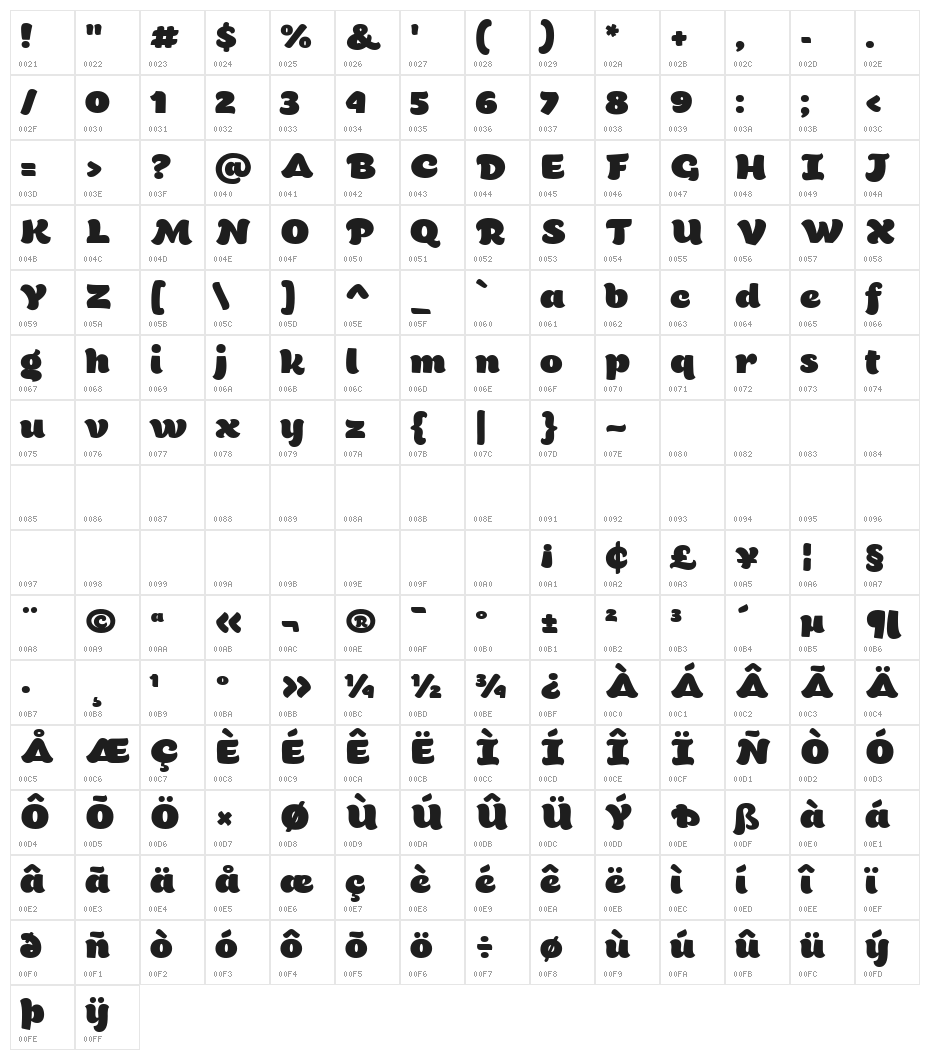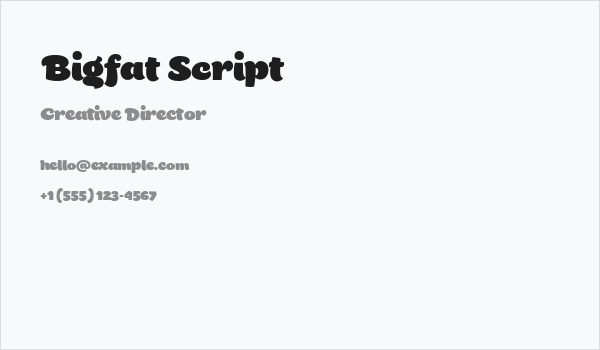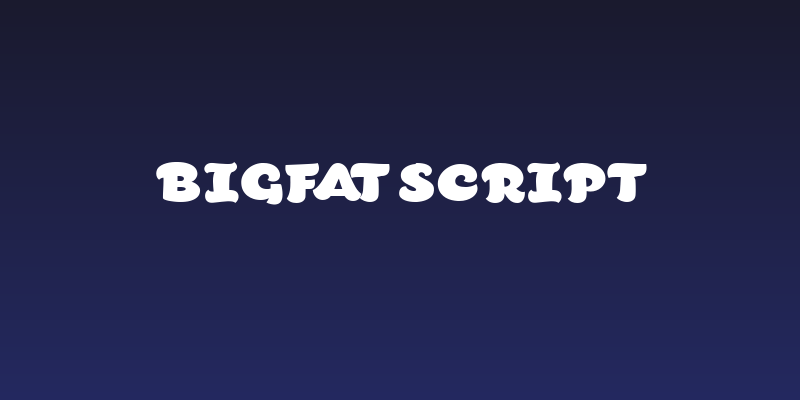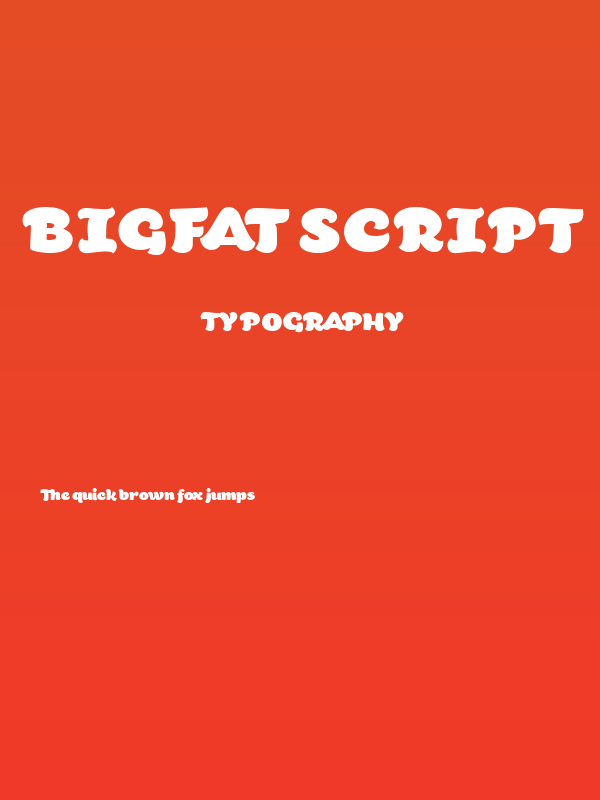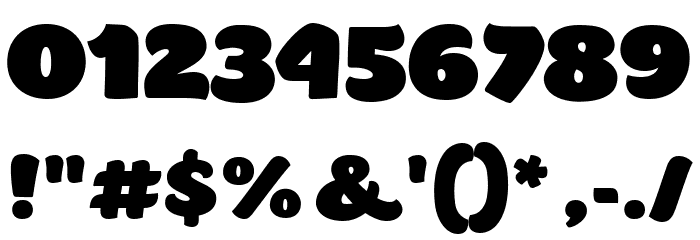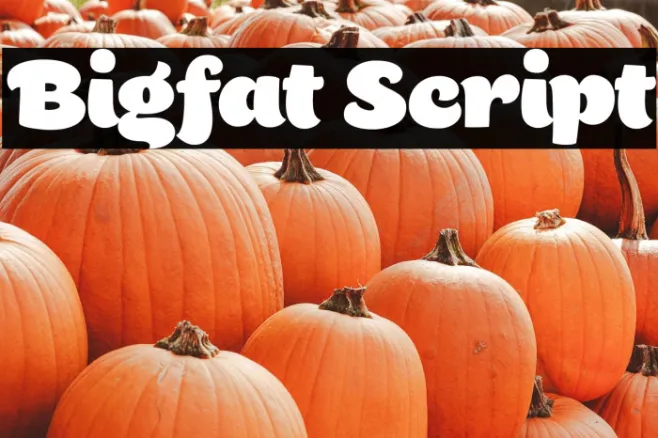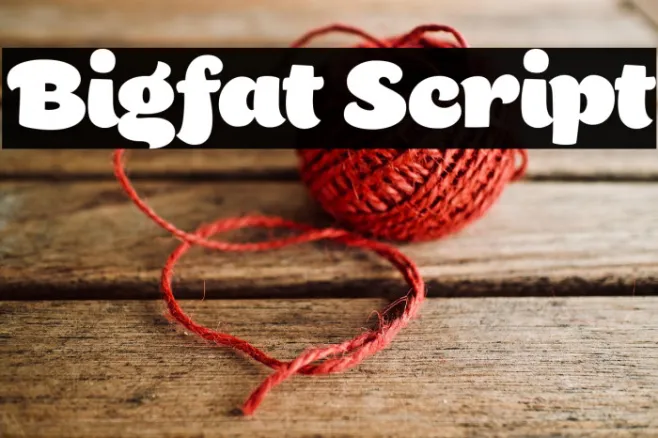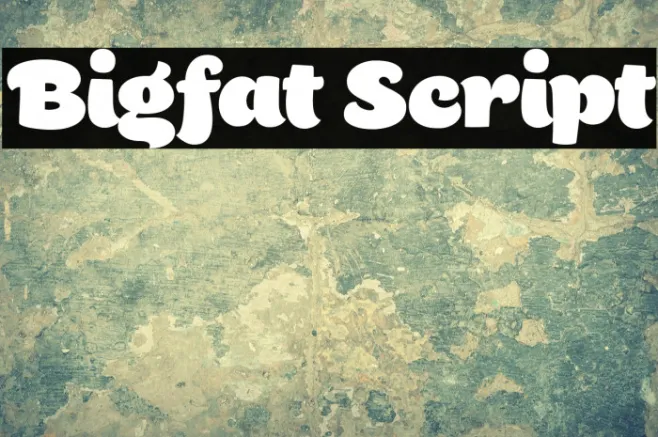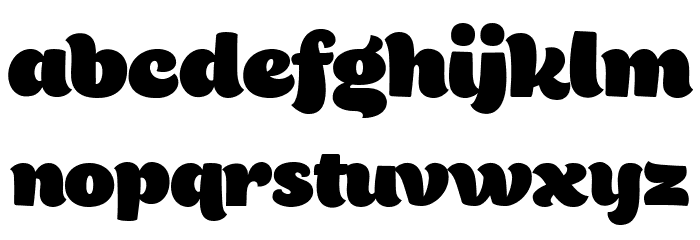
Bigfat Script Font
Bigfat Script Description
This font features a bold and playful script style with thick, rounded strokes that give it a friendly and approachable appearance. The characters are designed with a consistent weight, creating a uniform look across both uppercase and lowercase letters. The numbers and special characters maintain the same boldness, ensuring a cohesive design throughout. The font's exaggerated curves and smooth lines contribute to its whimsical and fun aesthetic, making it ideal for projects that require a touch of personality and flair.
| Proposed Projects | Ideal for children's book covers, playful branding, greeting cards, and creative posters. |